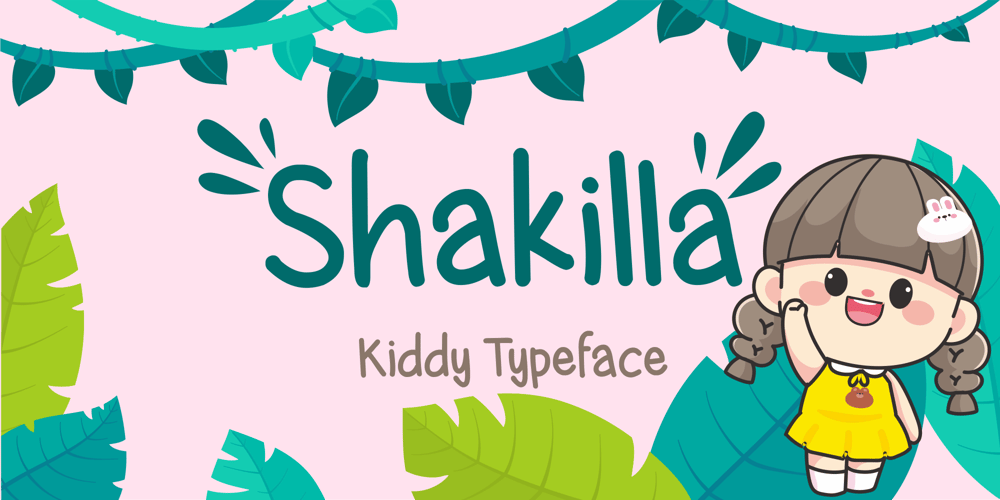
Shakilla Font Family was designed by Zamjump and published by Zamjump. Shakilla contains 1 styles and family package options. Pleased to introduce you to Shakilla new handwritten kid’s fun font! This is a cute kids handwritten font that would be perfect for Comic, books, greeting cards, toys, posters, picture books, branding, logo or anything that requires a fun and happiness look!